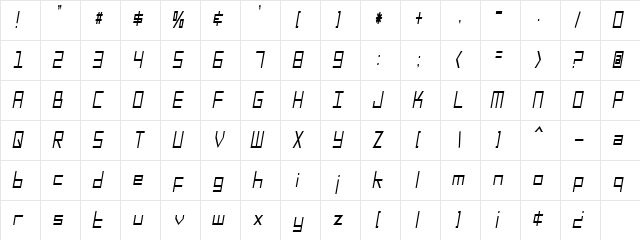
SF Square Head Condensed Italic Font Preview
Design Context for SF Square Head Condensed Typeface
SF Square Head Condensed takes a measured approach to typography — its balanced proportions and neutral character make it a reliable workhorse for both digital and print work. The slanted form adds forward momentum and visual energy. Its narrow stance lets it pack a punch even in space-constrained designs.